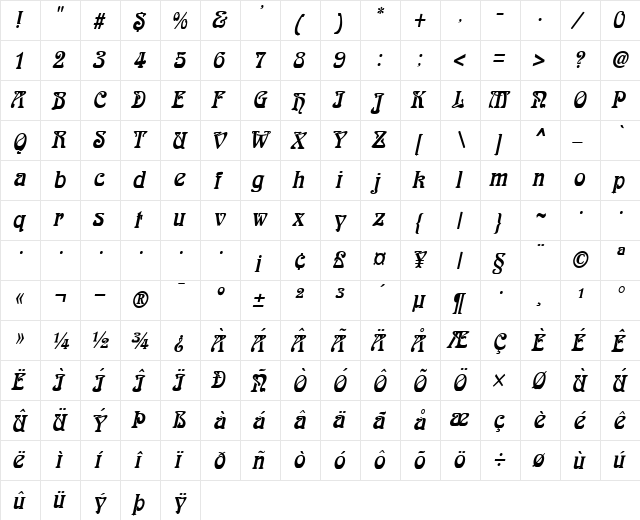
Aidan Italic
Design Context for Aidan Typeface
Aidan takes a measured approach to typography — its balanced proportions and neutral character make it a reliable workhorse for both digital and print work. The dynamic lean of this cut emphasises speed and emphasis in any layout.
Pro Tip: Use Aidan for emphasis, pull quotes, and subheadings where its slanted energy can add rhythm to the layout.